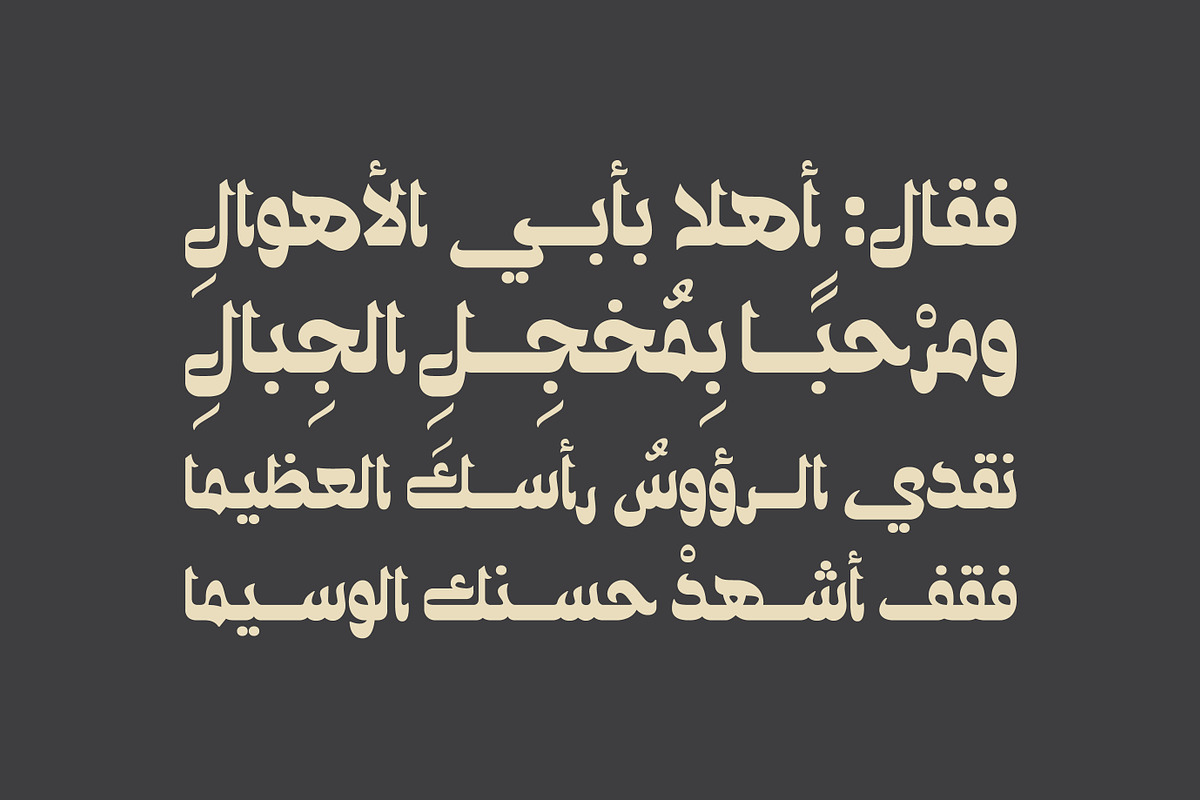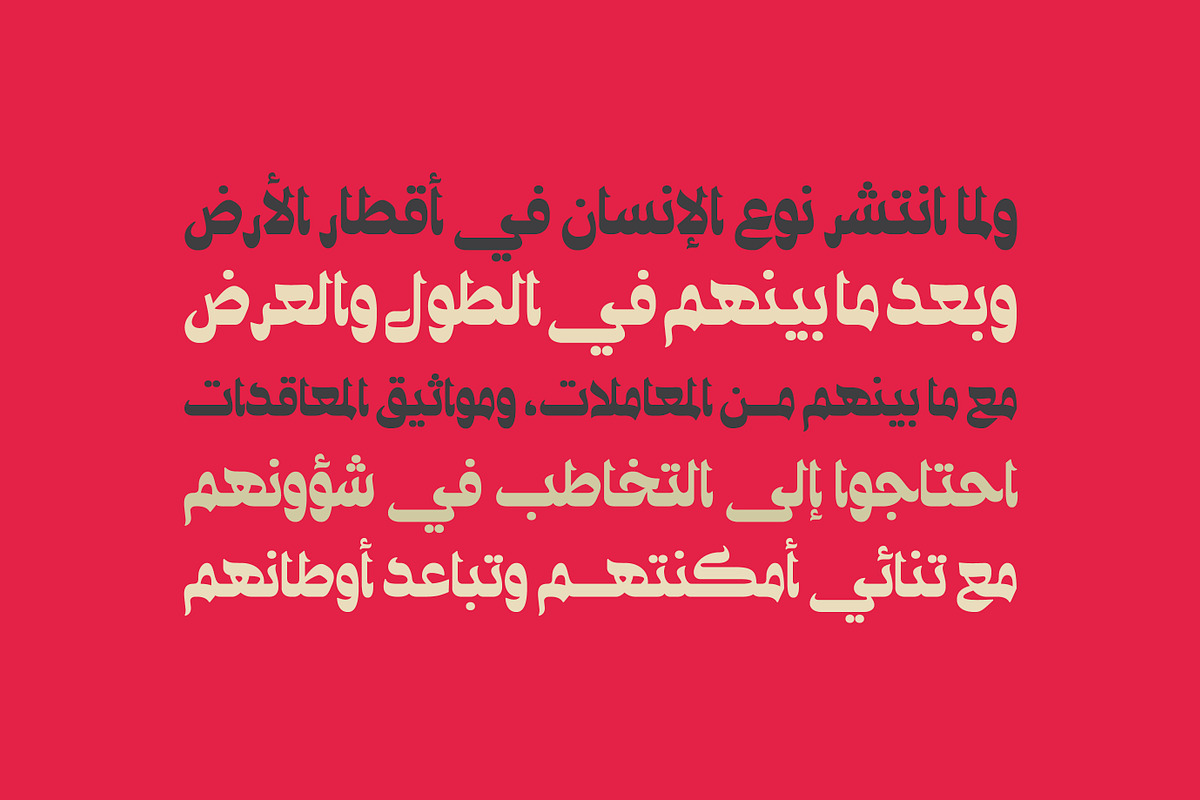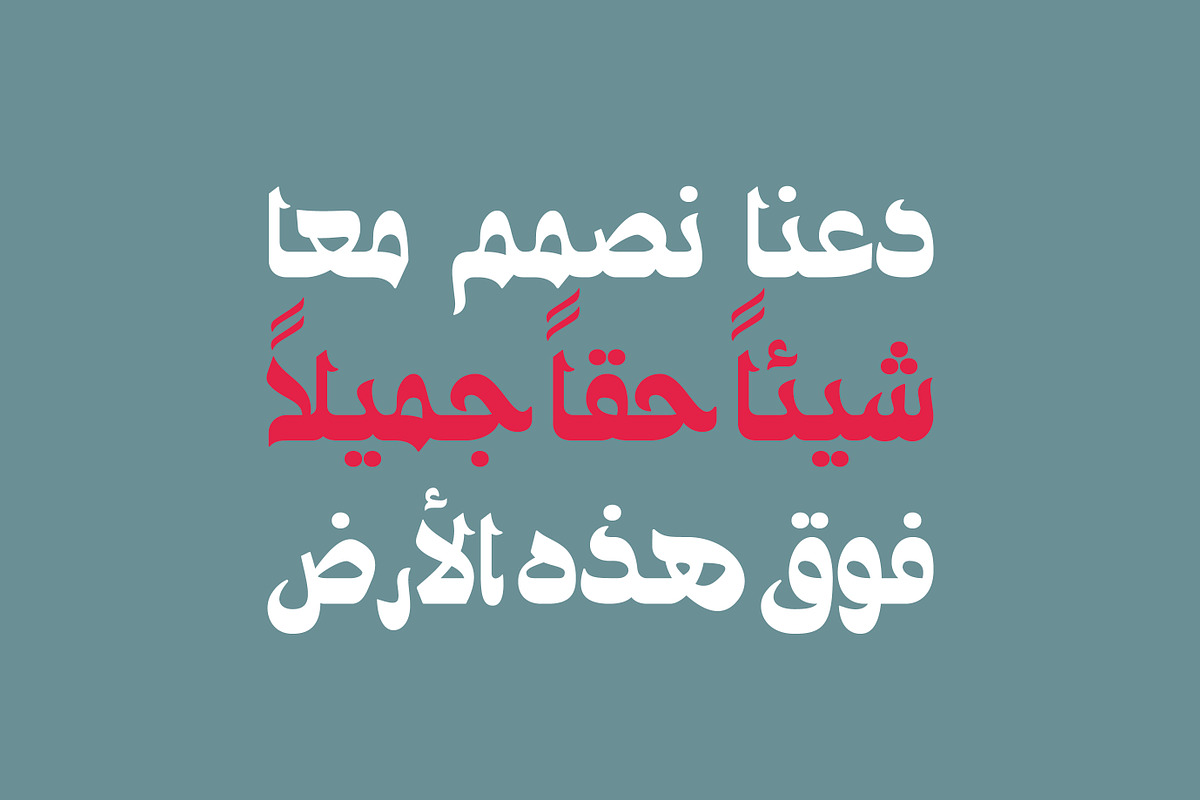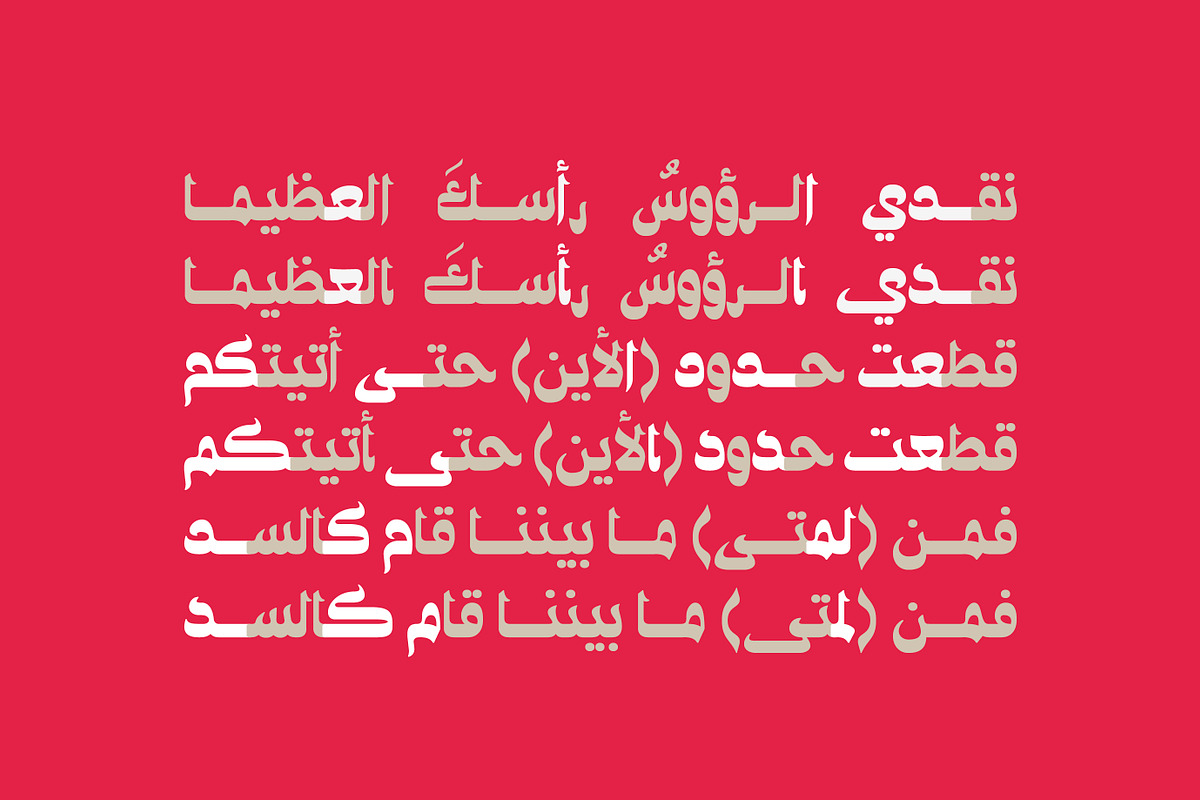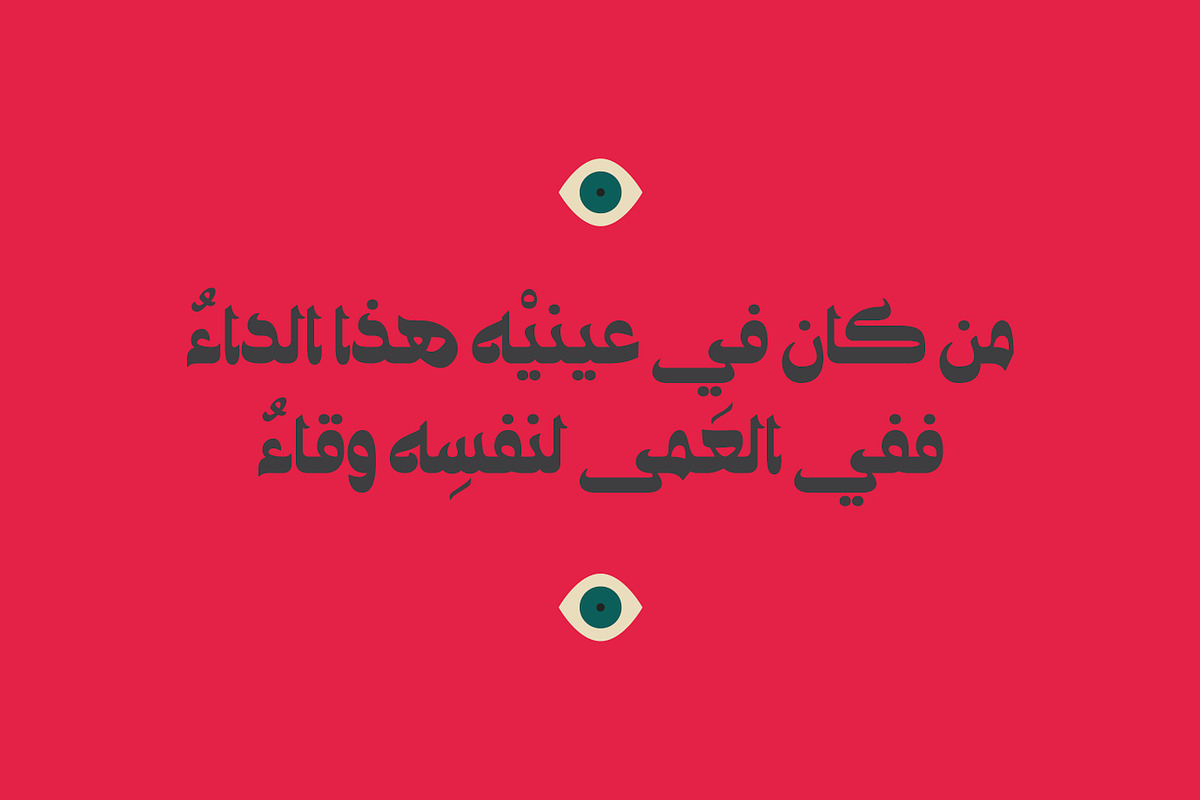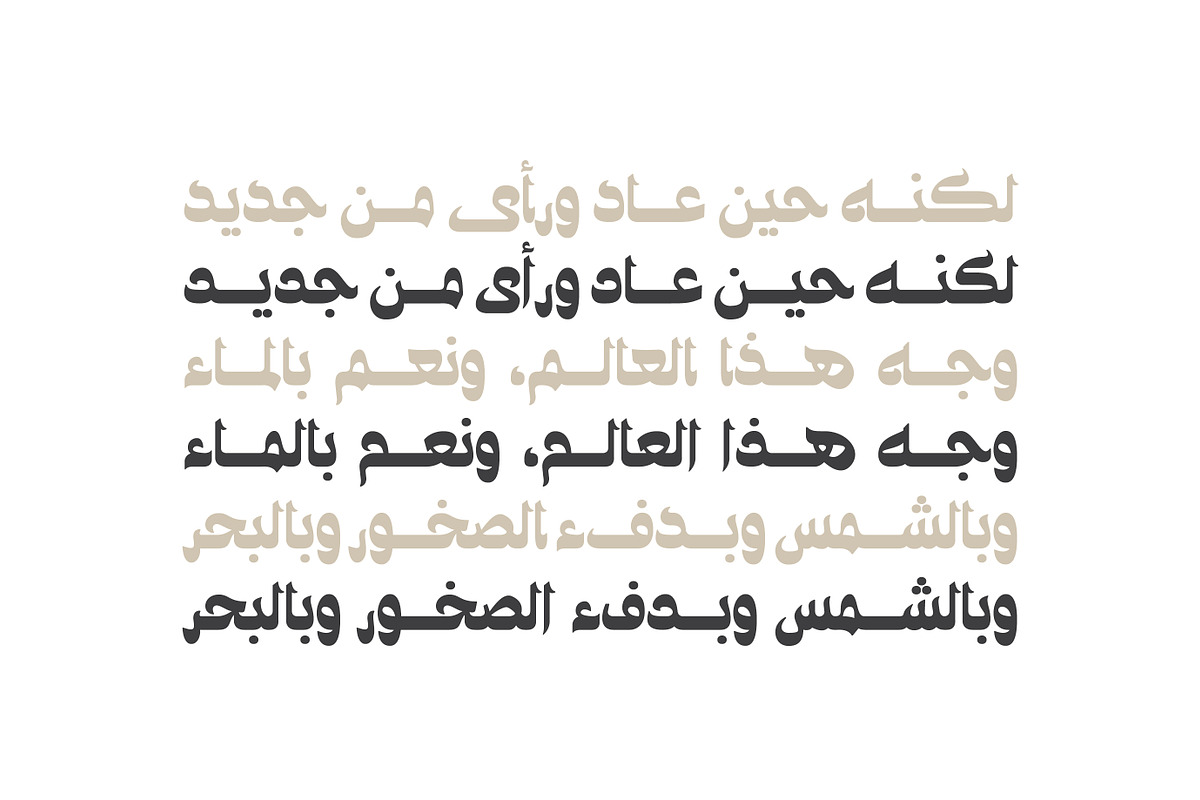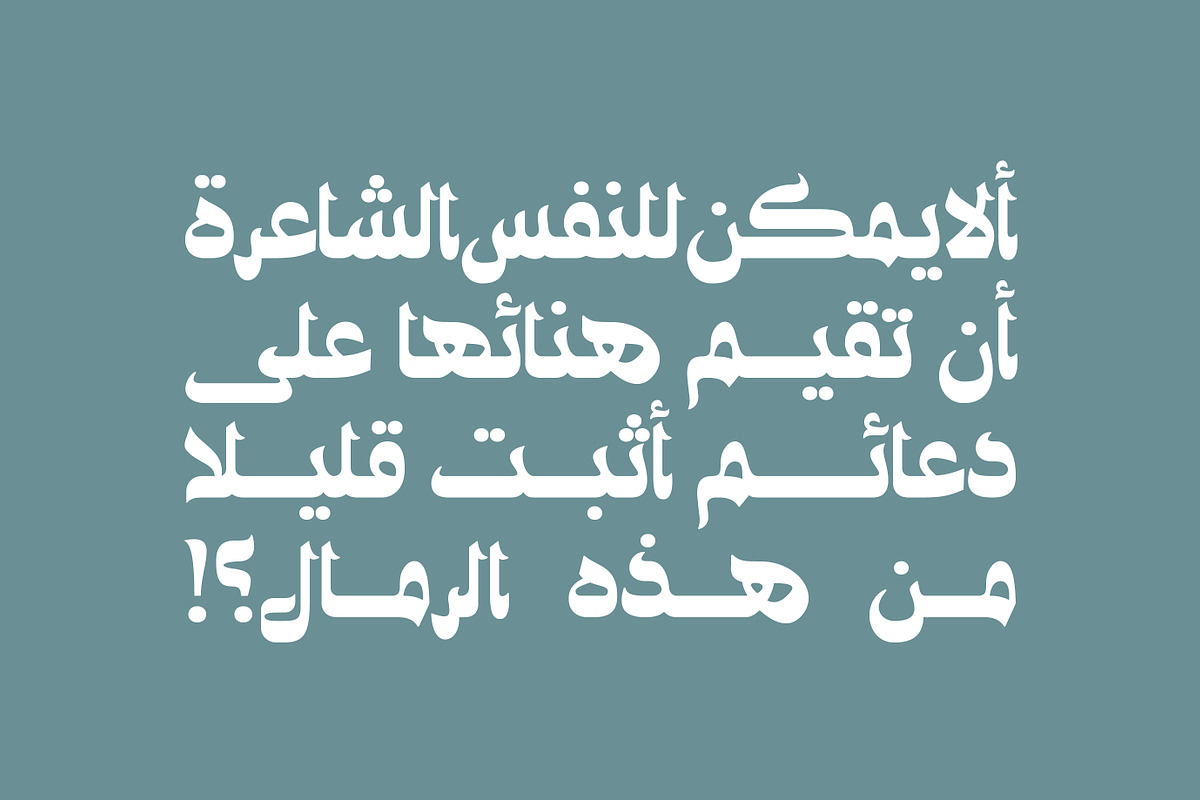
Ostouri - Arabic Font | خط أسطوري
Ostouri - Arabic Font | خط أسطوري by Mostafa El Abasiry is a font selected for branding, posters, packaging, typography.
Why Ostouri - Arabic Font | خط أسطوري is worth a look
Ostouri - Arabic Font | خط أسطوري by Mostafa El Abasiry fits naturally into Branding, posters, packaging, typography.